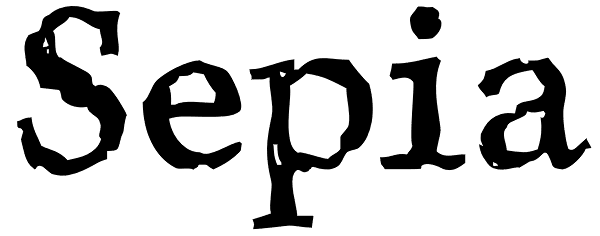
Sepia
Something magical happens when type is drawn by hand. Sepia is an attempt to capture that special controlled looseness when type is drawn with a pen. Emphasis is slightly exaggerated in key places resulting in an unusually pleasant visual that you...